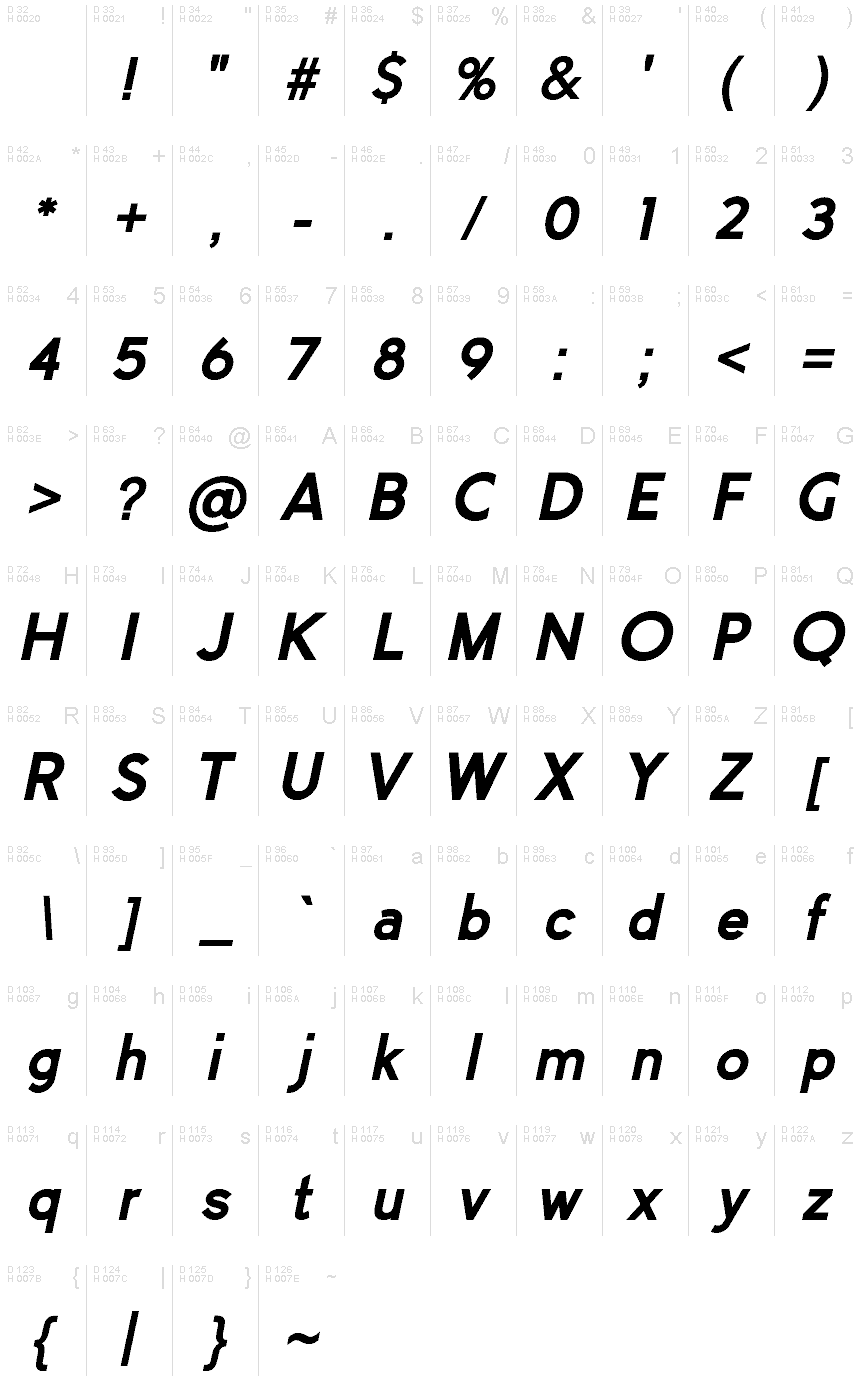
MANDISA Bold Italic
Mandisa Bold Italic font by UI Creative is a modern and contemporary sans serif typeface with clean lines and a strong presence. Its design is defined by geometric shapes that offer an appealing visual aesthetic with a touch of innovation. Particularly, the bold italic aspect of this font combines both power and elegance and it will suit projects that want to show such ideas.
Free, innovative, contemporary, usable in multiple projects are all features of Mandisa bold italic. The font can be used in brand logos, business cards, invitations, title headings in newspapers or magazines or books etc., brochures and flyers. It will also work nicely on website designs for digital reading or even in annual company reports printed for paper usage.